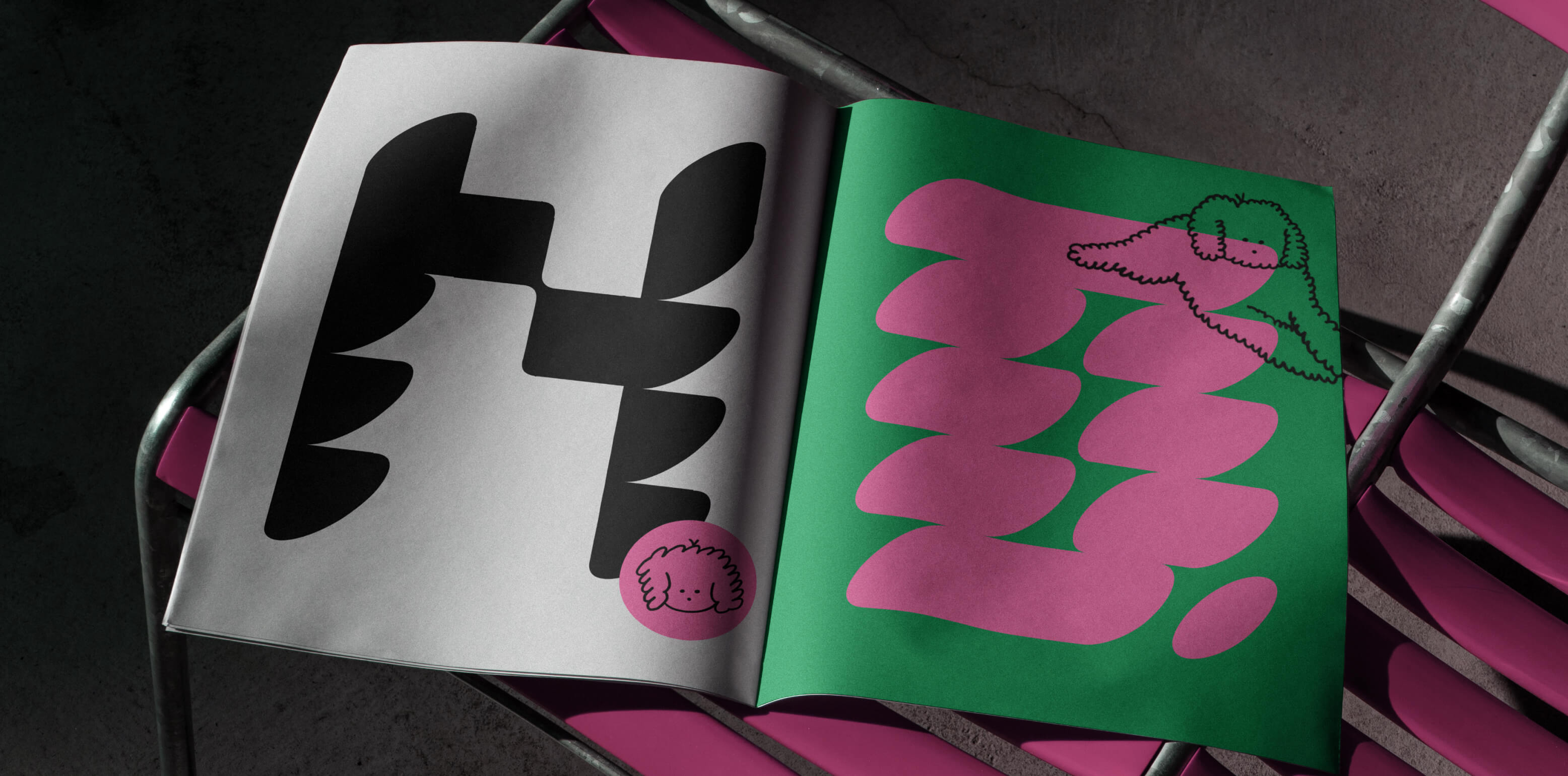
This is the funniest 'puppy-based' display font you will see around. Balanced and rounded, Caniche was built on top of a geometric grid which gives a perfect structure. Trust us, this font will ignite your next design.
Caniche
A
single case
ABCDEFGHIJKLMNOPQRSTUVWXYZ
accents & diacritics
ÁÂÄÀÃÇÉÊËÈÍÎÏÌÑÓÔÖÒÕÚÛÜÙẂŴẄẀÝŶŸỲ
DescriptionThis is the cutest 'puppy-based' display font you will see around. Balanced and rounded, Caniche was built on top of an unusual geometric grid which gives a good structure while allowing for whimsical and capricious shapes to take place. The elliptical and sinuous forms give a rather organic, dynamic, and natural feel to it.